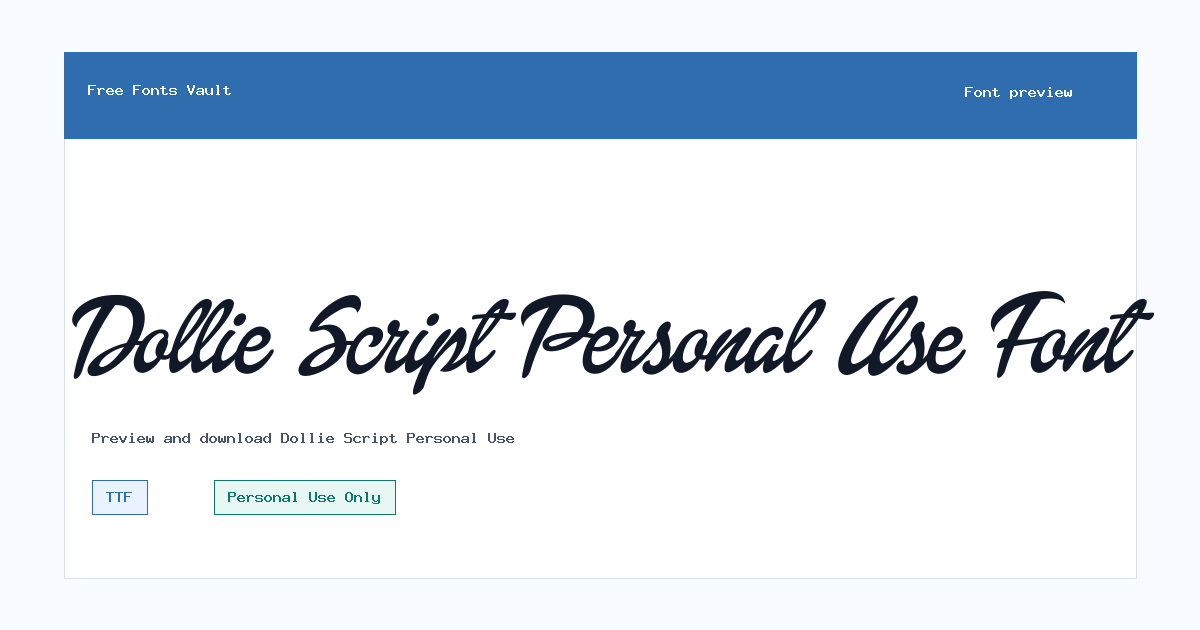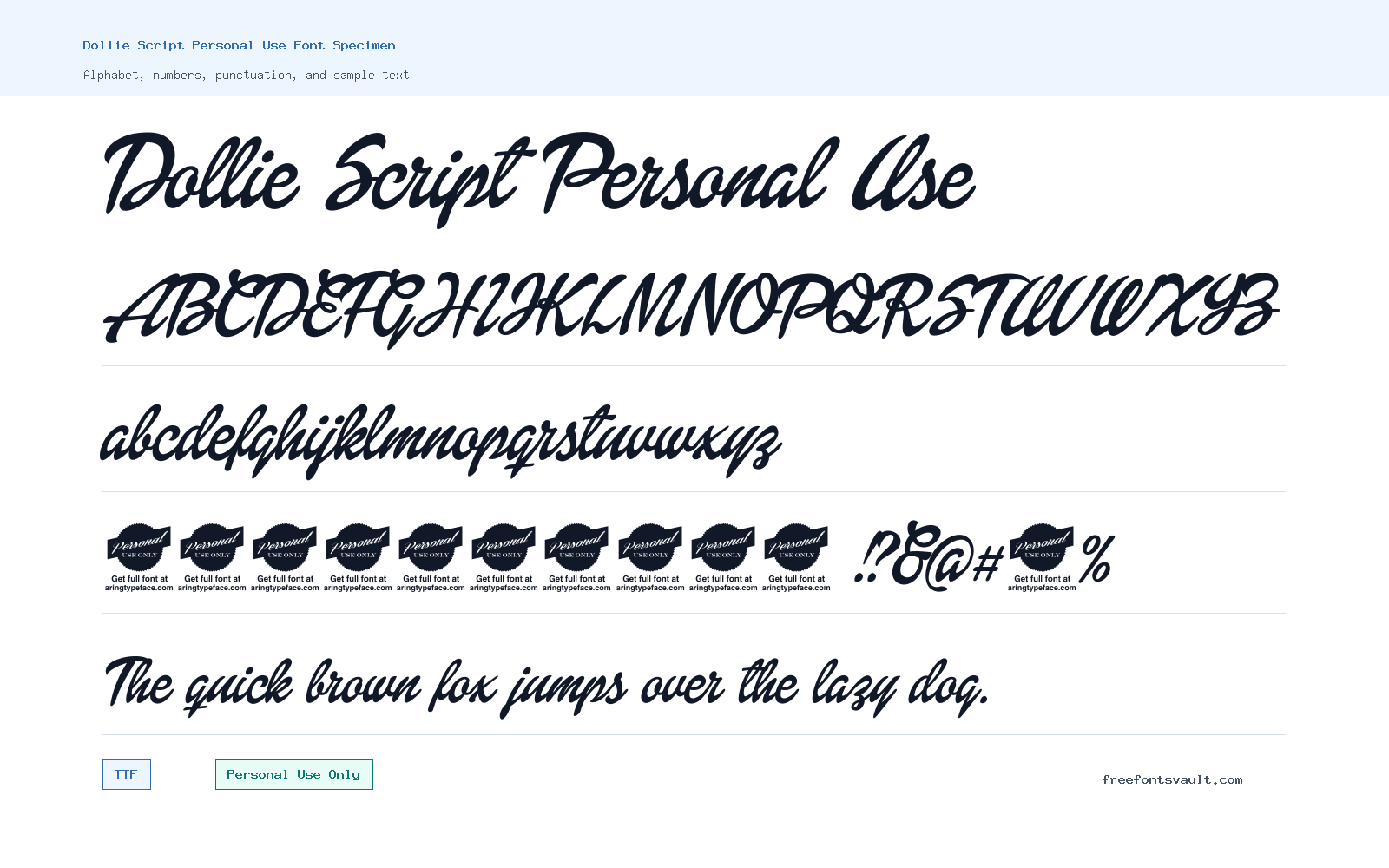
Dollie Script Personal Use
Dollie Script Personal Use font.
Dollie Script Personal Use is a handwritten script font with connected strokes, slanted letters, and a lively brush-like rhythm. It is meant for personal projects unless you buy a commercial license.
About Dollie Script Personal Use
Dollie Script Personal Use has a casual script look with flowing lowercase letters and more decorative uppercase forms. The preview shows a fast, handwritten style that works best when the text is short enough for the curves and connections to stay readable. It can bring a personal, informal feel to headings, name graphics, invitations, quote cards, labels, and social images.
- Connected handwritten script style with a slanted, brush-like flow
- Personal invitations, cards, quotes, and name designs
- Short headings, packaging mockups, labels, and social graphics for non-commercial use
Keep the text short, give the letters enough space, and test both uppercase and lowercase before using it in a finished design. For better readability, use Dollie Script for display text and choose a simpler companion font for body copy. Dollie Script Personal Use works best when the text has room to breathe. Test names, invitations, labels, and social graphics at the final size, then adjust spacing if connecting letterforms or flourishes start to feel crowded.
What kind of font is Dollie Script Personal Use?
It is a connected handwritten script font with a slanted, brush-like look.